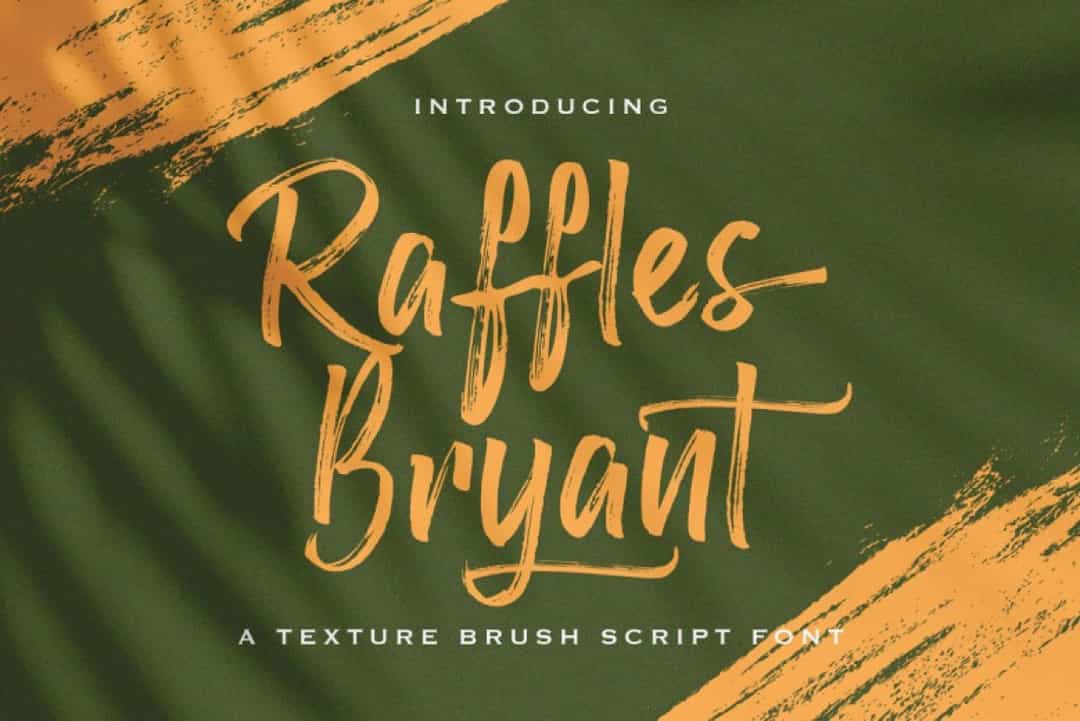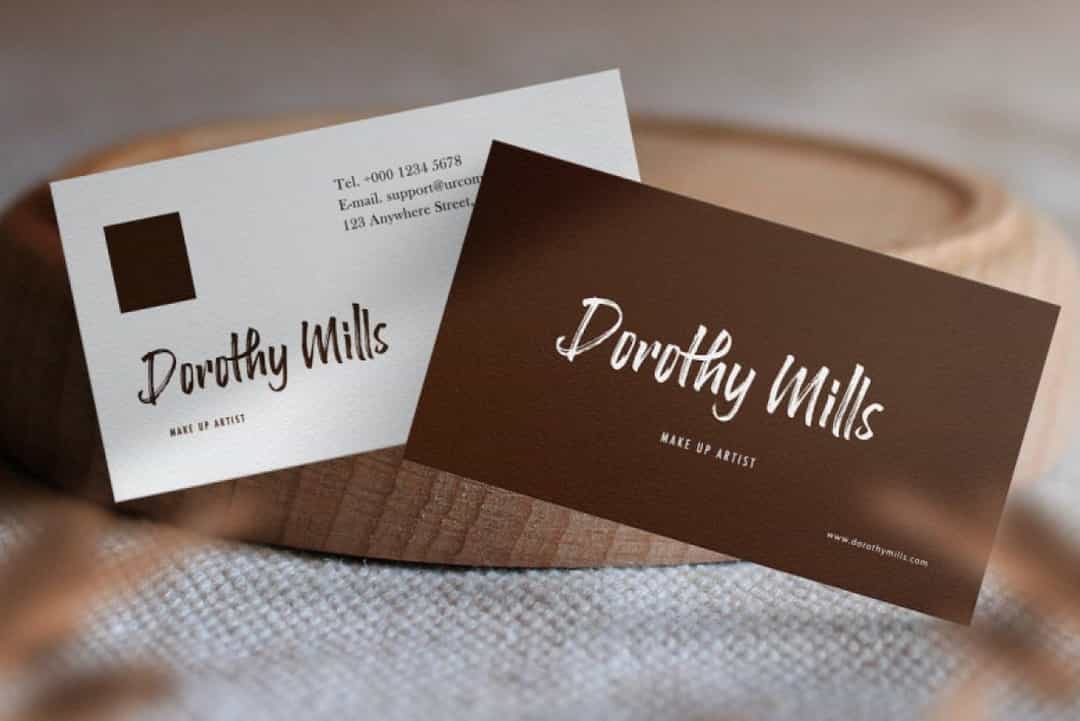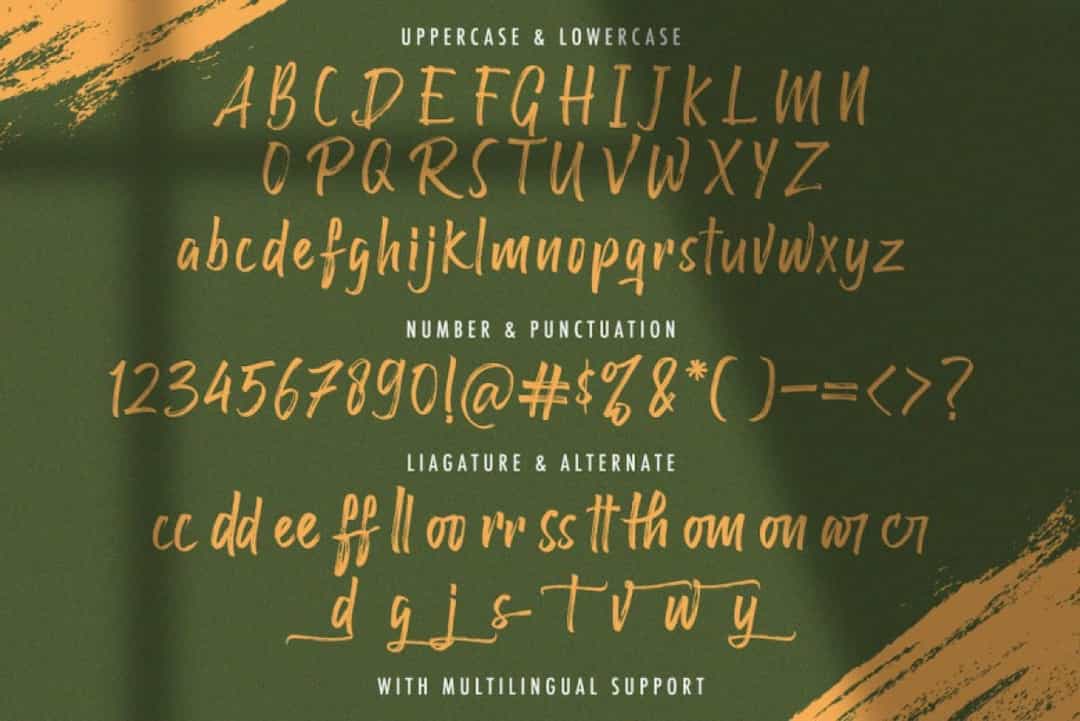
Raffles Bryant is an eye-catching hand-painted script typeface. Get inspired by its distinctive yet stunning style and add it into your designs for an eye-catching result!